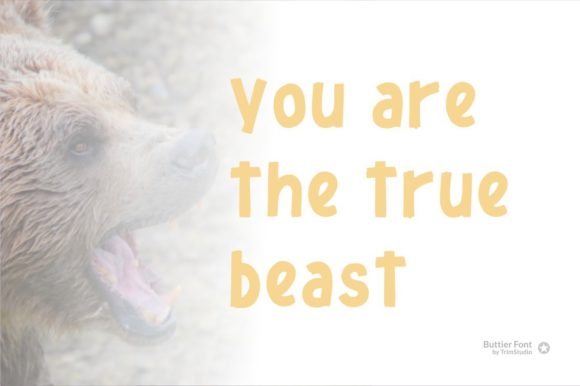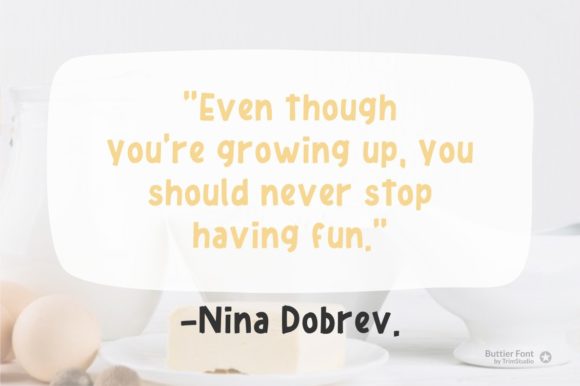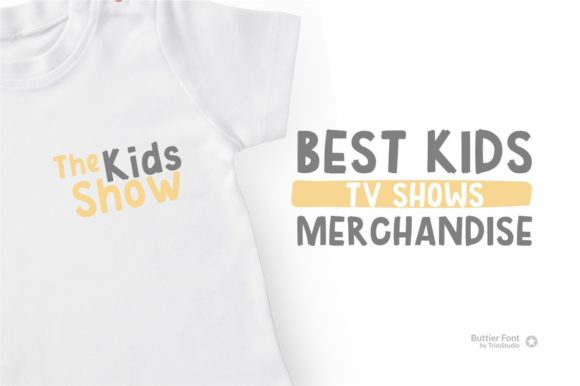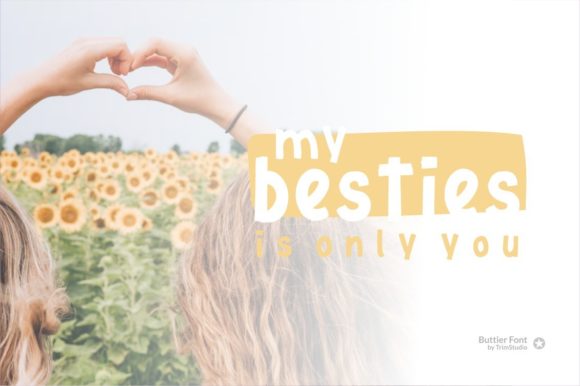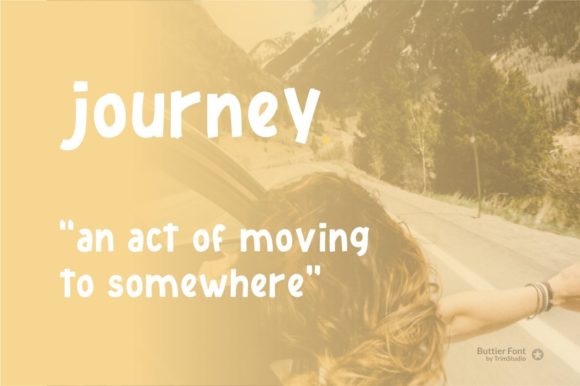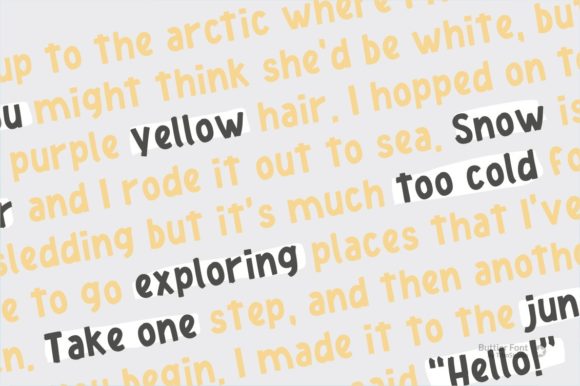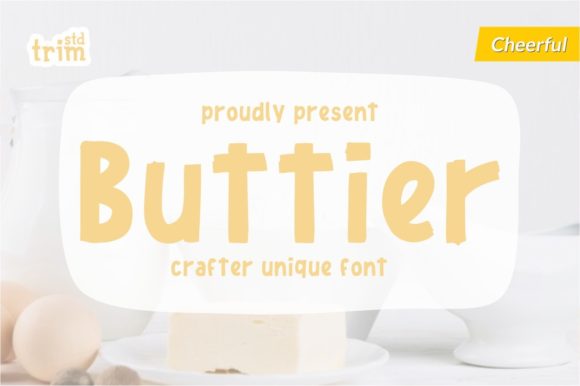
The Font that Stole My Heart: A Deep Dive into Buttier
I still remember the design project that led me to discover Buttier. I was working on a branding campaign for a trendy new cafe, and I was struggling to find the perfect font to capture their playful yet sophisticated vibe. That’s when I stumbled upon Buttier, a cool, brushed display font that instantly elevated my design game. In this article, I’ll share my love for Buttier, its features, and how to make the most of it in your designs.
An Honest Review of Buttier
So, what makes Buttier an incredible asset to your font library? 🤔 Here are some things I love:
• ✨ Unique brushed texture that adds a touch of personality to any design
• ✅ Highly legible, even at smaller sizes
• 💥 Versatile and adaptable to various design styles and themes
• 🎨 Extensive OpenType features, including stylistic alternates and glyphs
While Buttier is an amazing font, it’s not perfect. Here are some small quirks to keep in mind:
• ⚠️ Some characters may appear a bit narrow or condensed, which can affect spacing
• 🤔 Limited use of uppercase letters, which may not be ideal for certain designs
The Story Behind Buttier
Buttier was designed by a talented type designer who wanted to create a font that captured the essence of a bygone era. Inspired by vintage signs and posters, Buttier combines a unique brushed texture with modern typographic sensibilities. The result is a font that’s both nostalgic and fresh.
Font Name Buttier Font
Author Trim Studio
Is Buttier suitable for body text? While Buttier is highly legible, it’s primarily designed for display use. For body text, consider using a more traditional serif or sans-serif font.